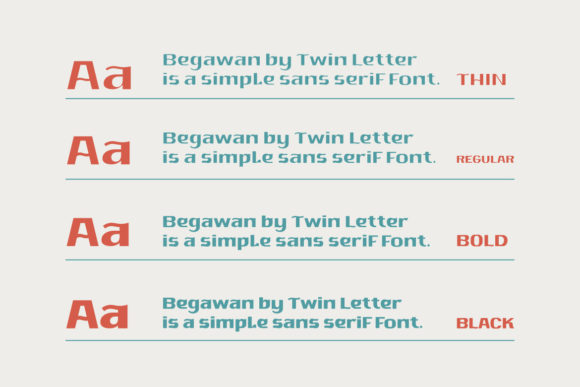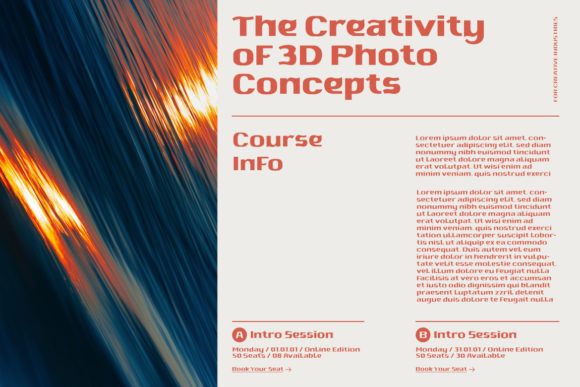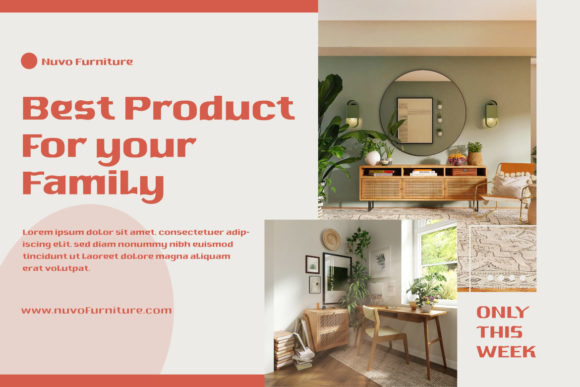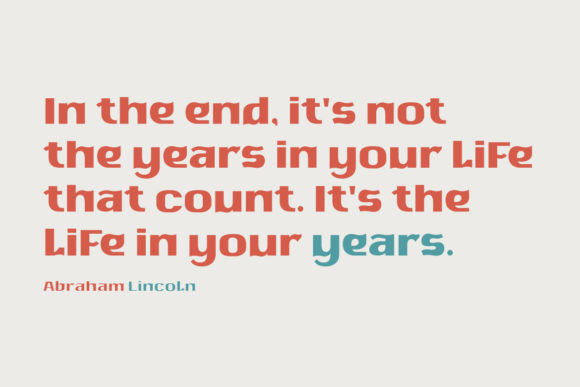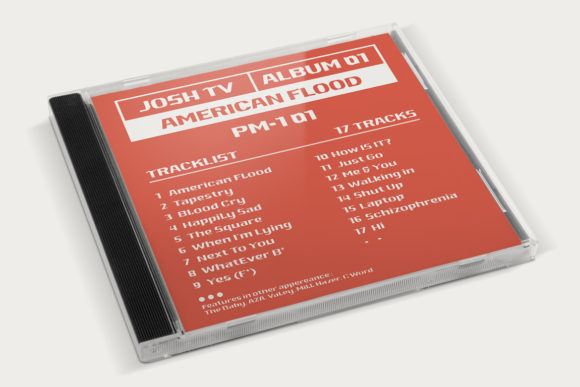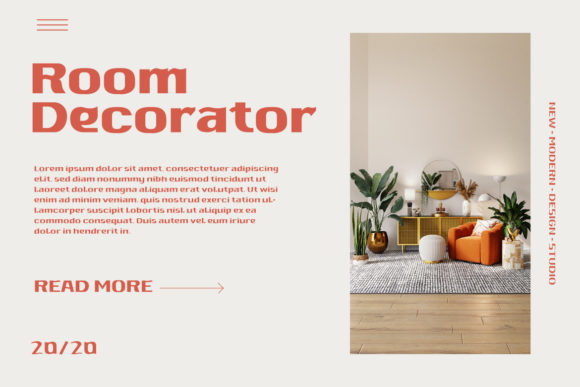
Have you ever been on the beach, watching the waves roll in, feeling the ocean breeze in your hair, and suddenly, a wave of creativity hits you? That’s exactly what inspired the design of the Begawan Font – a modern sans serif typeface that captures the essence of beach waves. This font is not just a design element, but a way to add a unique touch to your projects and make them stand out.
The Begawan Font is perfect for designers who want to add a bold and bombastic touch to their visuals. With its unique characters suitable for titles, subtitles, and body text, this font is equipped to take your design projects to the next level. Whether you’re working on a brochure, a website, or a social media campaign, the Begawan Font is sure to make your visuals pop and grab the attention of your audience.
Begawan Font Key Features
- Font Family: Begawan Font is a sans-serif font family, designed to provide a clean and modern look for digital and print media.
- Unique Characteristics: Begawan Font features a unique blend of modern and traditional design elements, resulting in a distinctive and recognizable visual identity.
Begawan Font Review
Overall, I think Begawan Font is a solid choice for designers looking for a clean and minimalist sans-serif font. Here’s what I like about it:
- ✨ Unique character: The font has a distinct, modern feel that sets it apart from more common sans-serif fonts.
- ✨ Legibility: Begawan Font is highly legible, making it a great choice for body text and long passages of text.
- ✨ Versatility: The font comes in a range of weights and styles, making it suitable for a variety of design applications.
- ⚠️ Limited expressiveness: While the font is clean and modern, it can sometimes feel a bit sterile or lacking in personality.
- ⚠️ Limited character set: Begawan Font may not support all languages or character sets, which can be a limitation for designers working on multilingual projects.
Overall, I think Begawan Font is a great choice for designers who want a clean and modern sans-serif font. While it may not be the most expressive or versatile font out there, it’s a solid choice for a wide range of design applications.
For optimal results, use Begawan font in combination with a clean and minimalist design aesthetic. Avoid using it for large blocks of text, as it can become overwhelming. Instead, use it for headings, titles, or short paragraphs.
Begawan font is commonly used for:
- Editorial and design publications
- Web design and digital media